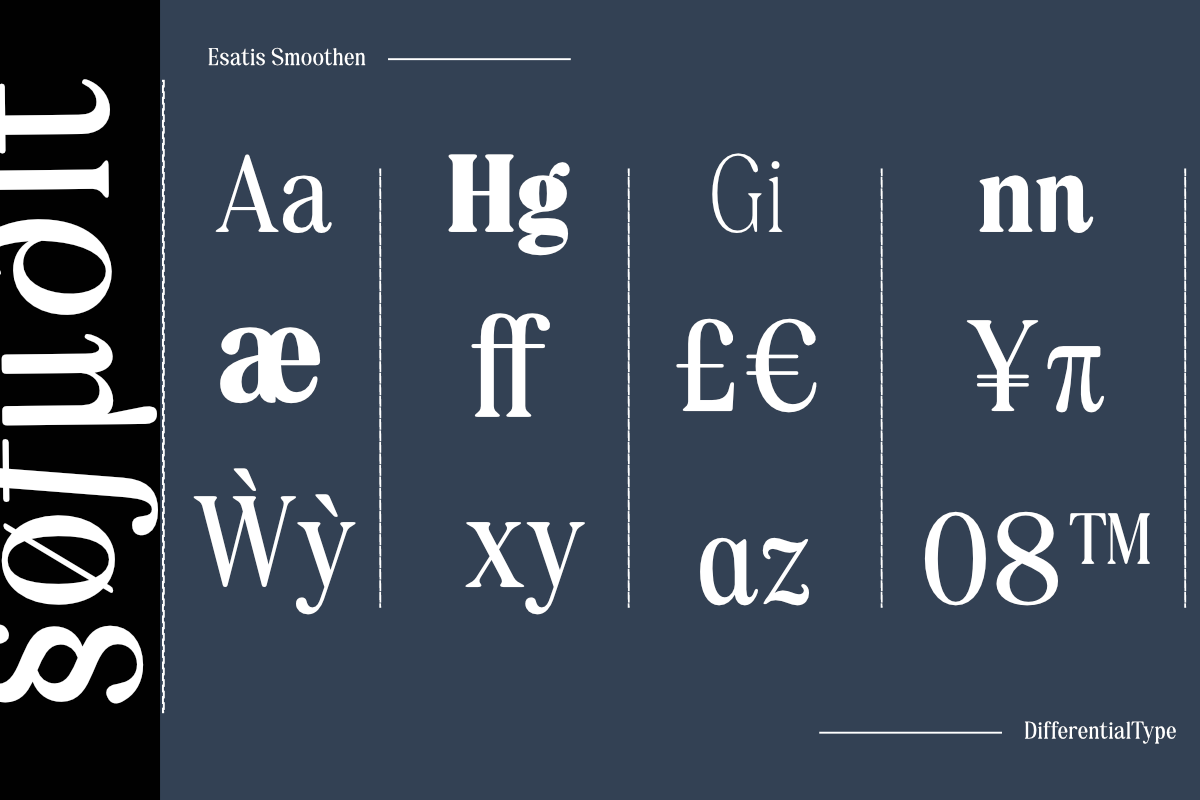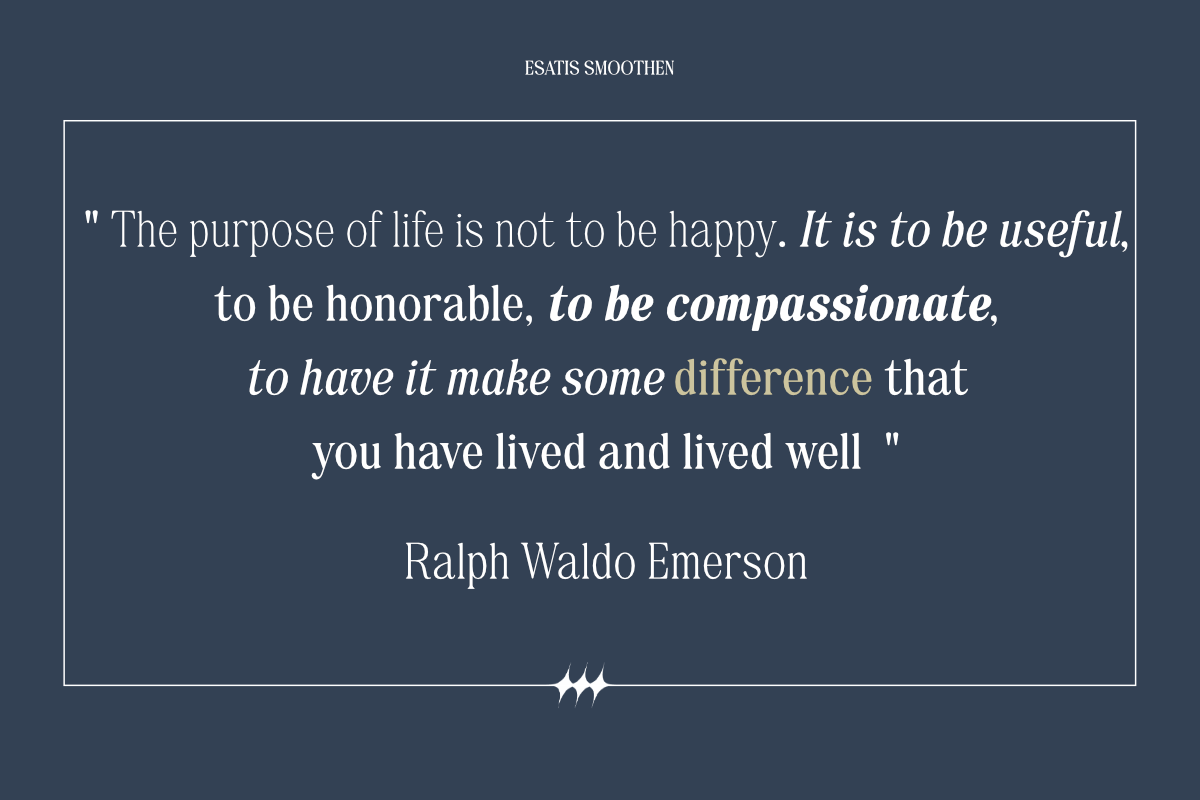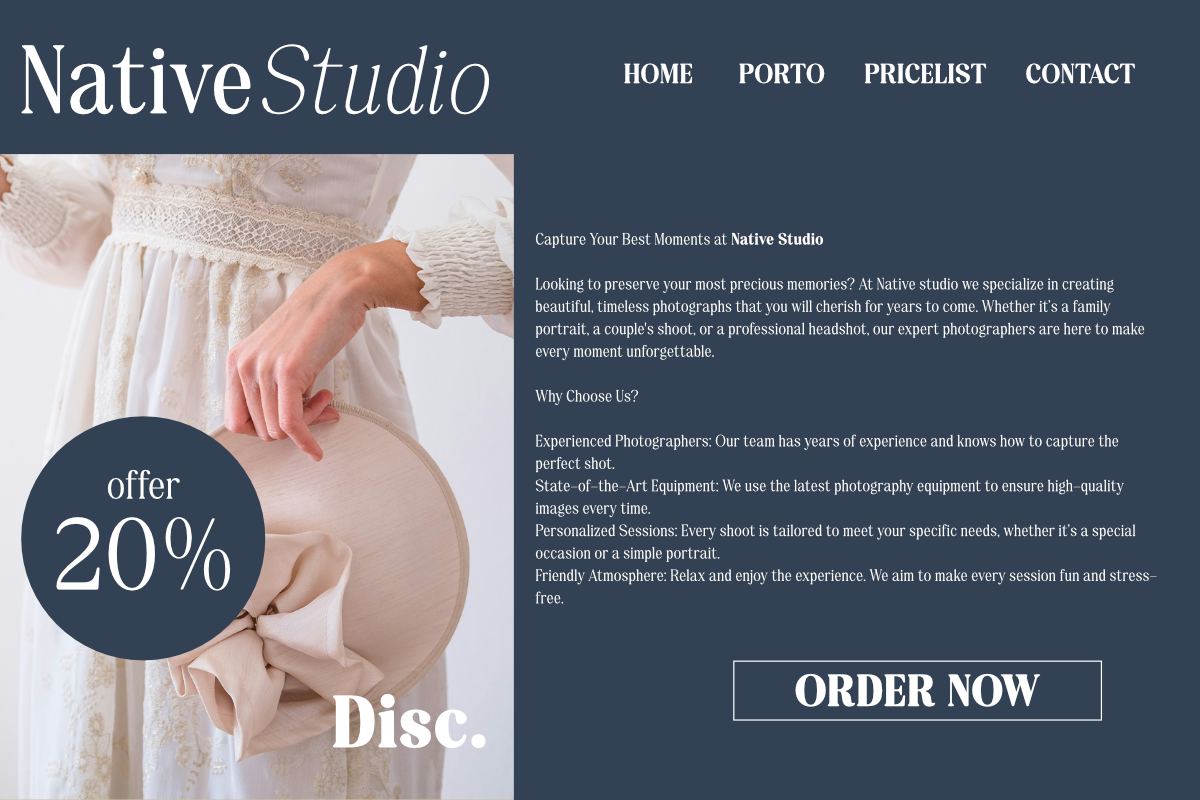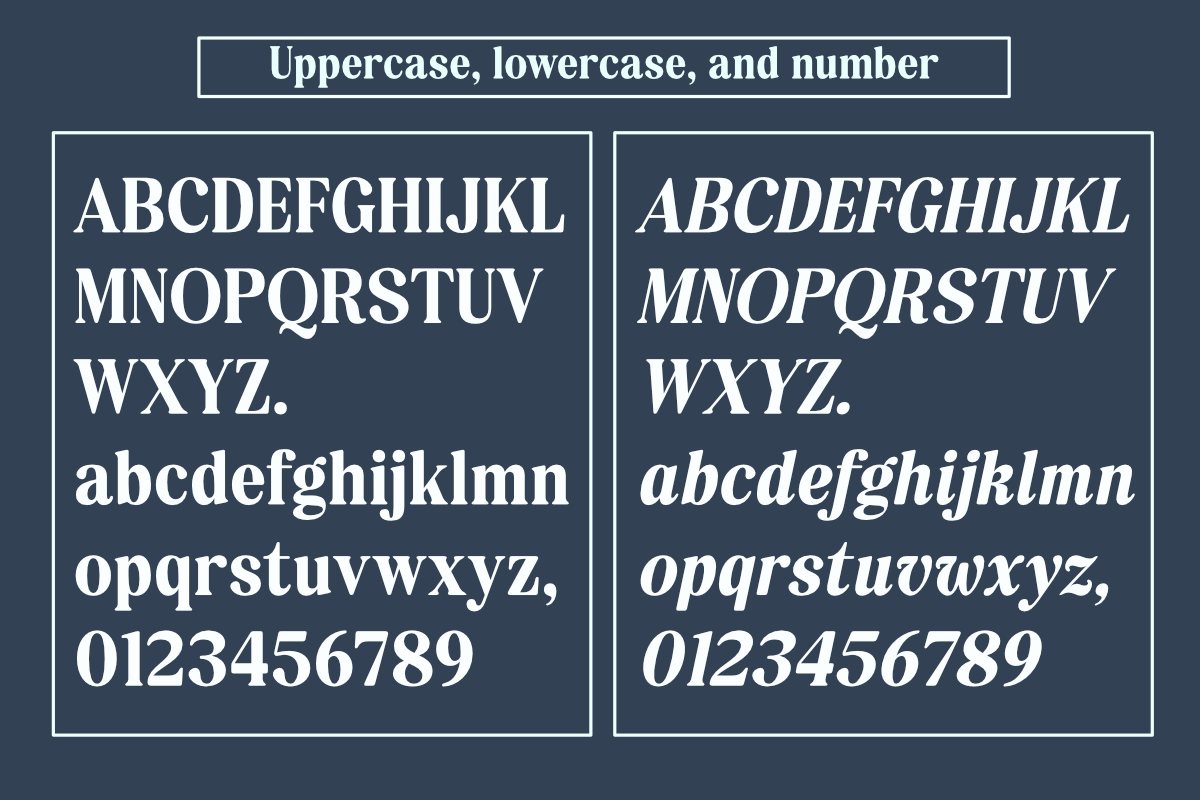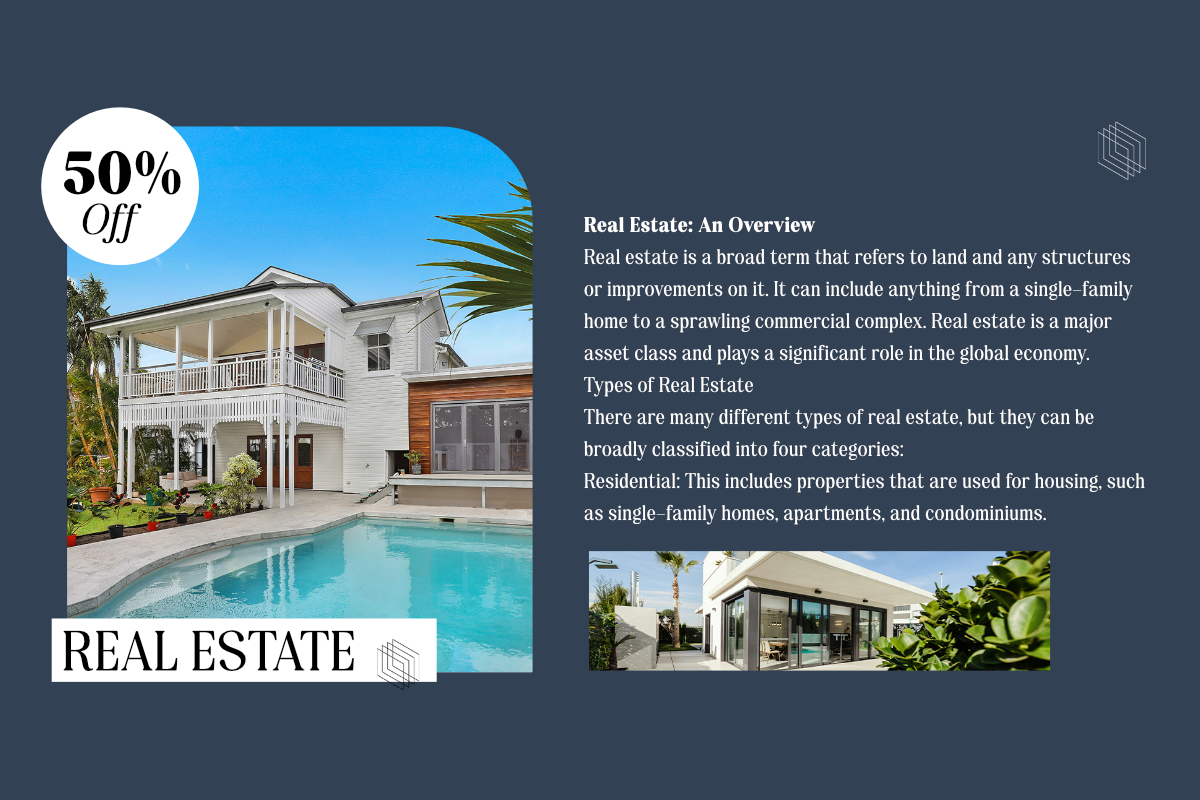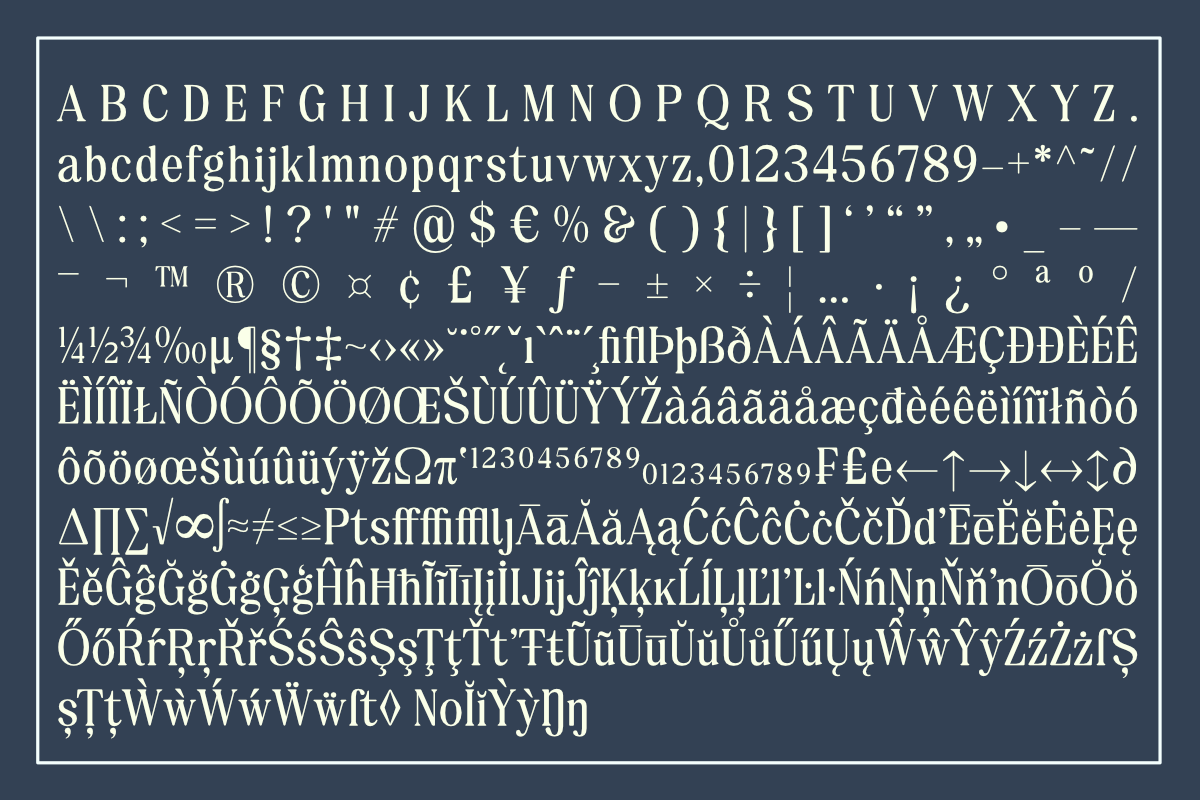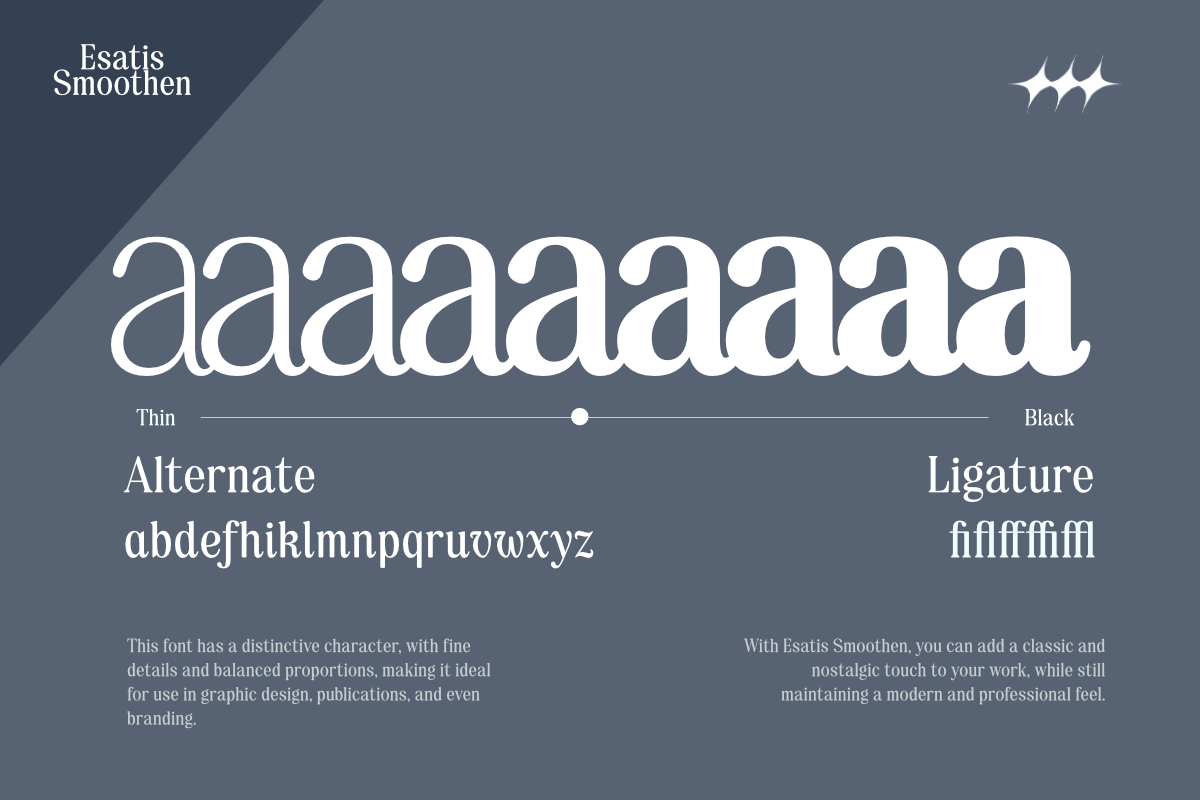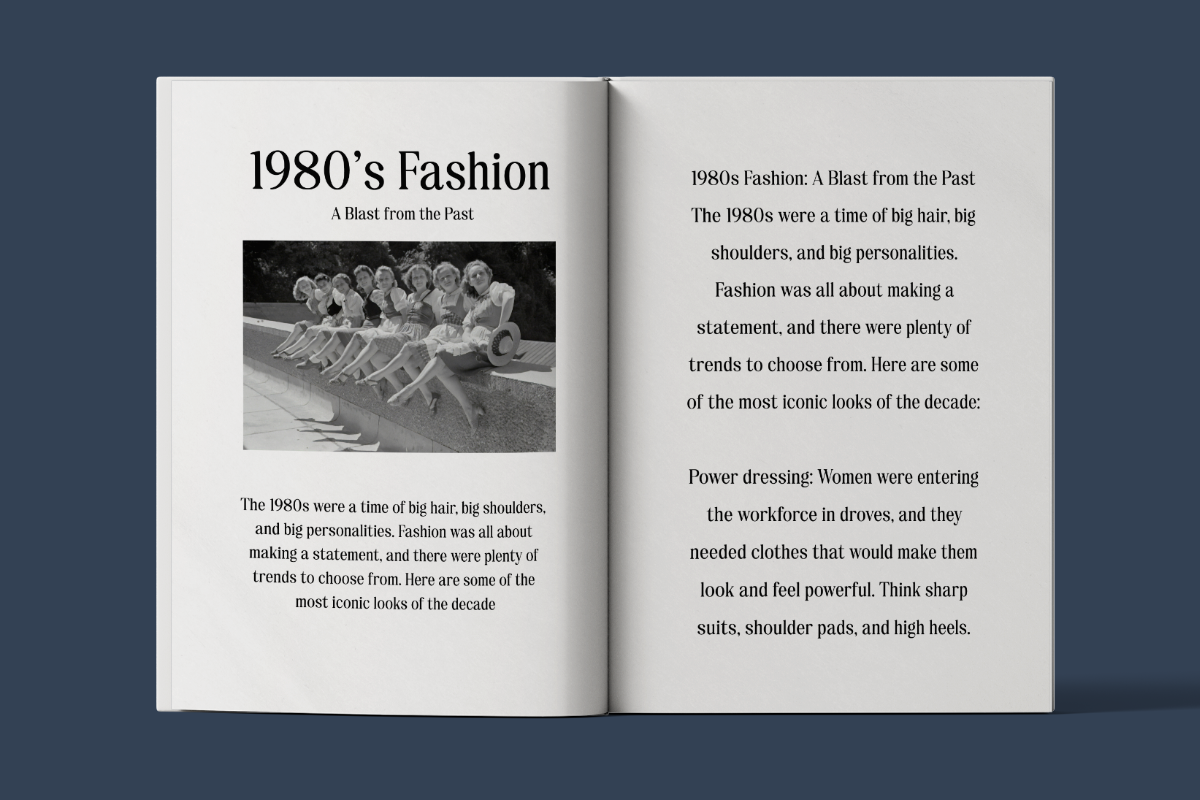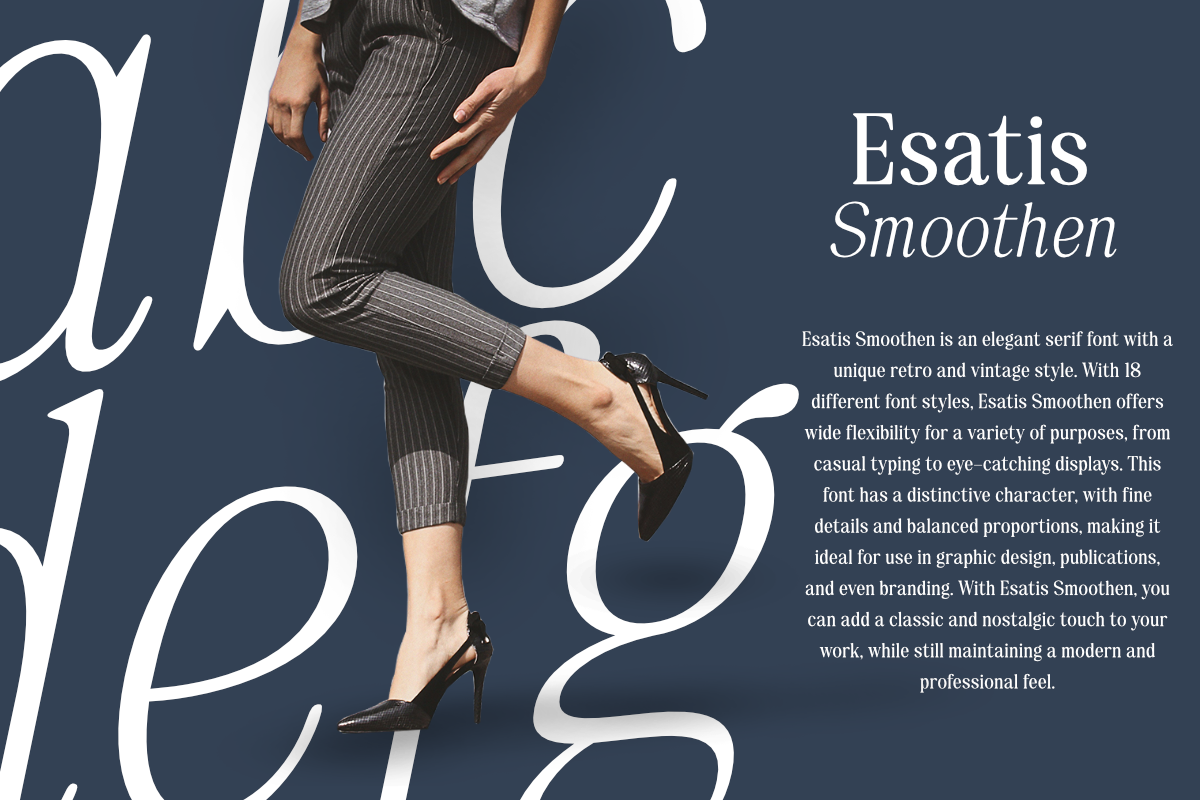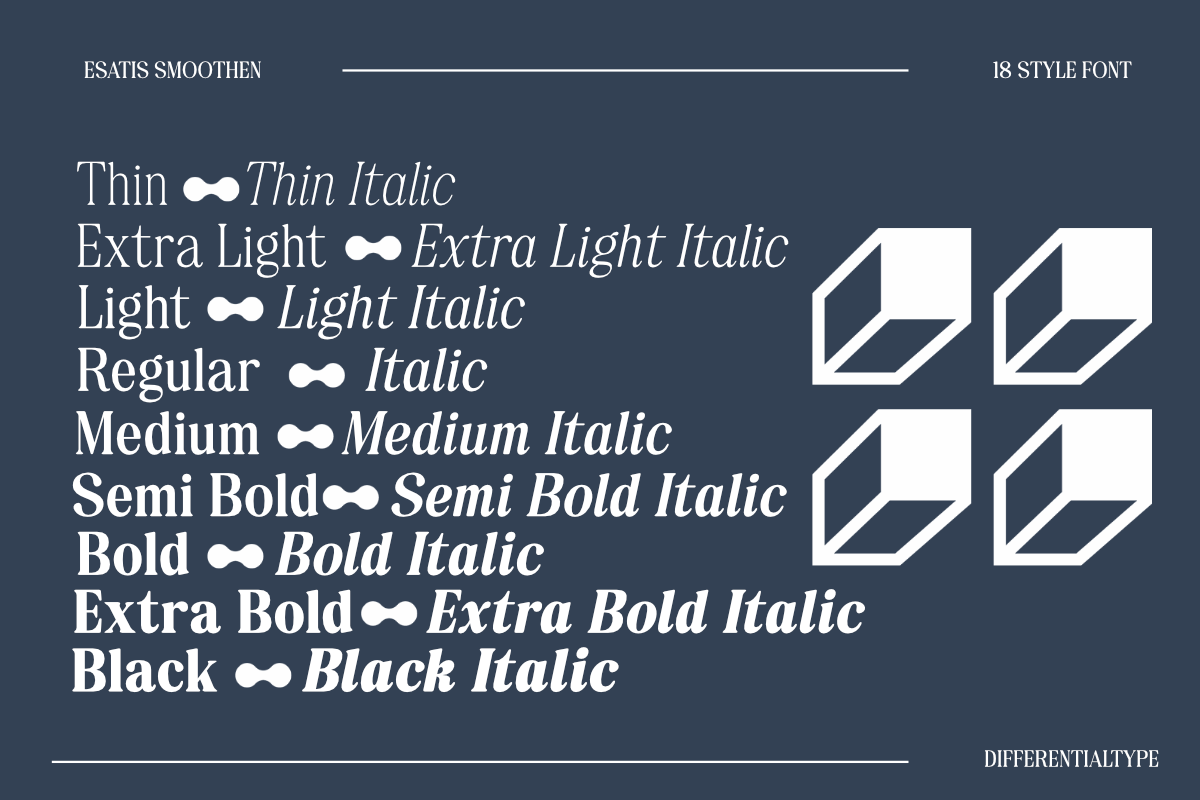
Esatis Smoothen - Serif Family
Esatis Smoothen is an elegant serif font with a unique retro and vintage style. With 18 different font styles, Esatis Smoothen offers wide flexibility for a variety of purposes, from casual typing to eye-catching displays. This font has a distinctive character, with fine details and balanced proportions, making it ideal for use in graphic design, publications, and even branding. With Esatis Smoothen, you can add a classic and nostalgic touch to your work, while still maintaining a modern and professional feel.